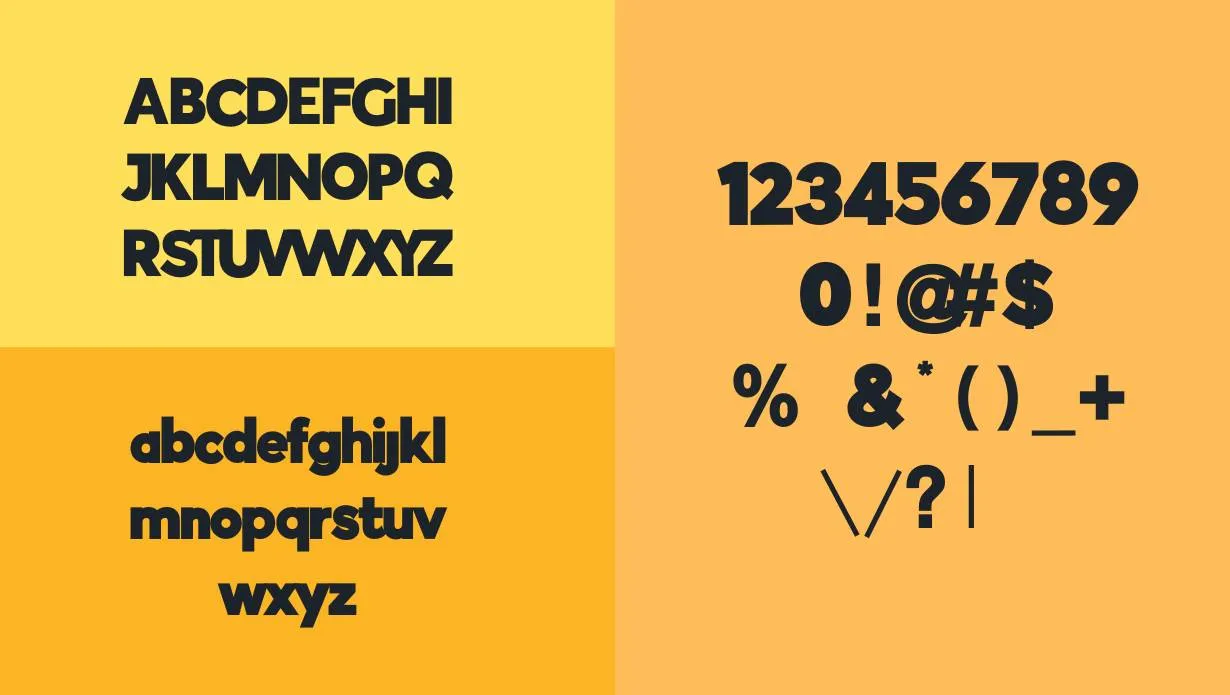
Indigo Font offers a distinct and artistic style to your text, making it perfect for giving your content a unique flair. This font belongs to Sans Serif Fonts. You can download it in TTF and OTF file versions.
Indigo Font Family